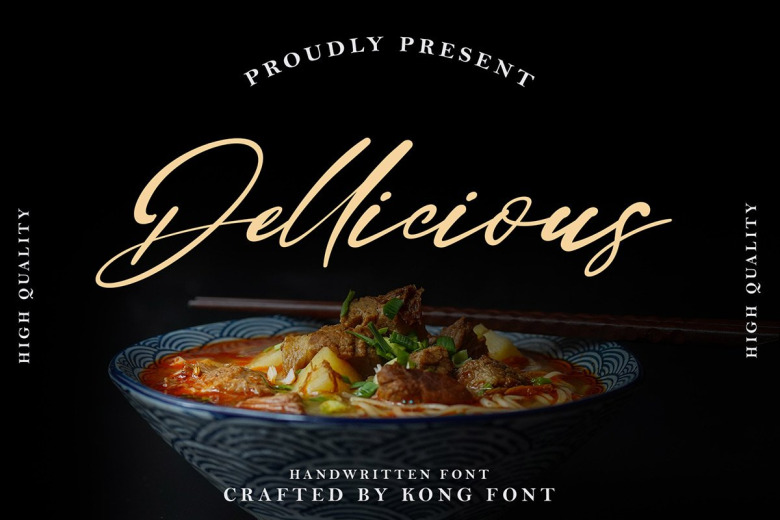
Dellicious Font
This is a beautiful script typeface created by Kong Font with handwriting style. Dellicious Script will work perfectly for fashion, e-commerce brands, trend blogs, wedding boutiques or any business that wants to appear upscale and chic.